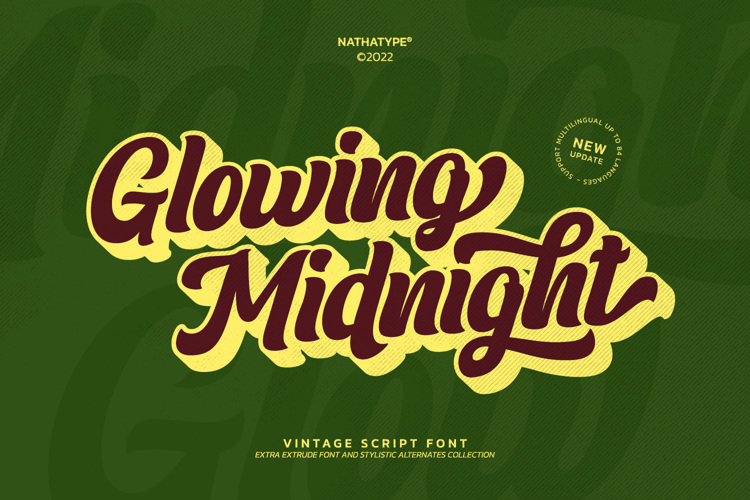
Glowing Midnight Font
NATHA TYPE
Step back in time with Glowing Midnight, a captivating script font that exudes the charm of vintage typography. Glowing Midnight is made in a thick weight that adds a sense of strength and presence to your text.
Features:
• Ligatures
• Swashes
• Stylistic Sets
• Multilingual Supports